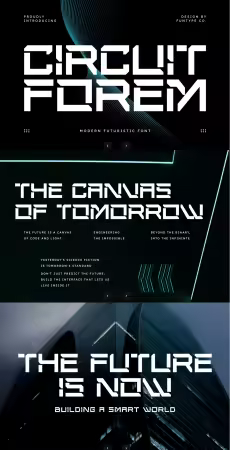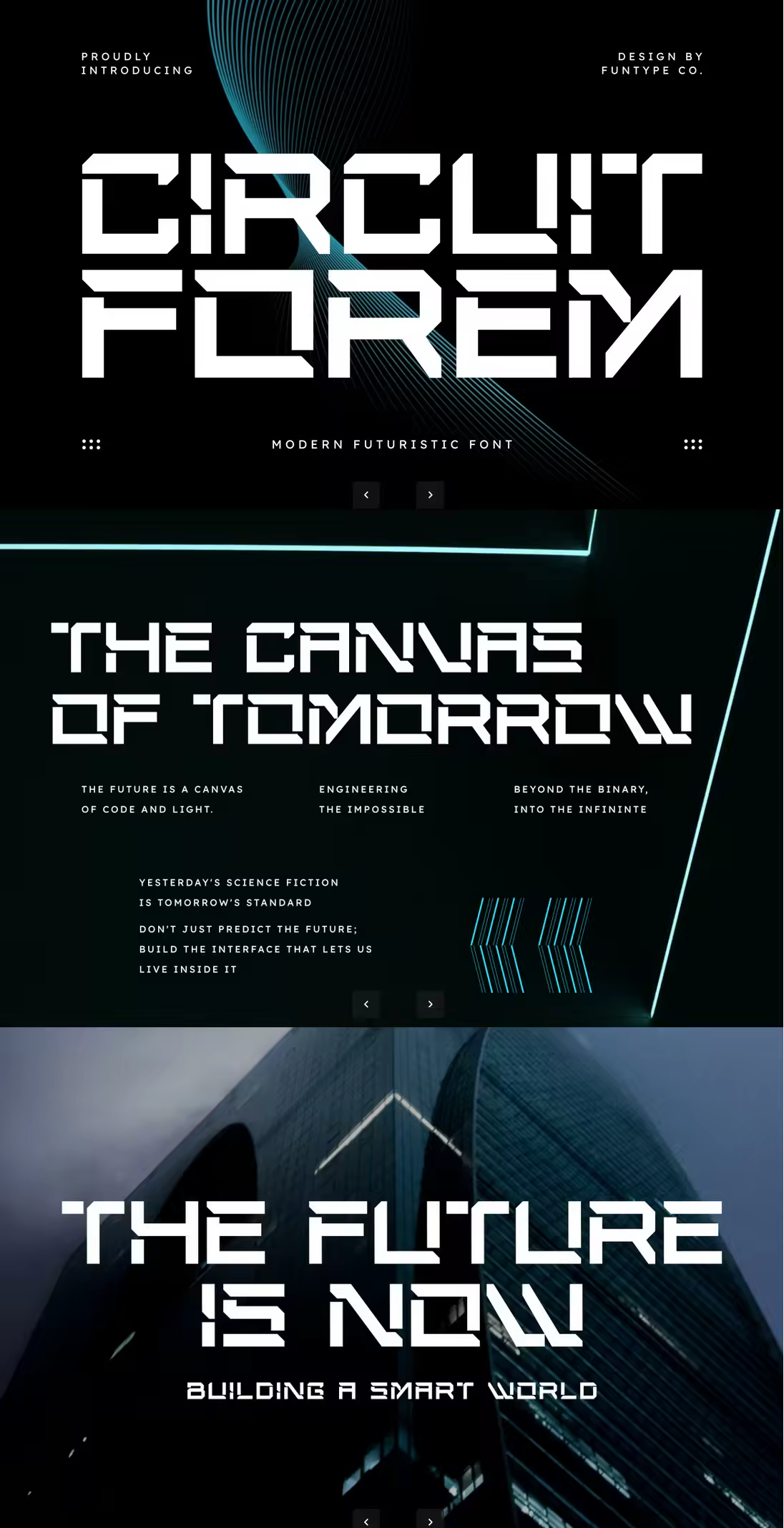
Circuit Forem - Modern Futuristic Techno Font
Circuit Forem is a cutting-edge futuristic font designed for the digital age. Inspired by circuit boards and high-tech architecture, this typeface features sharp, geometric lines that evoke a sense of speed, precision, and advanced technology.
It is the perfect choice for designers looking to create a powerful impact in the gaming industry, tech startups, sports branding, or any project that requires a bold, forward-thinking aesthetic. Whether for a logo, a sci-fi poster, or an app interface, Circuit Forem delivers a strong professional presence.
Main Features
Bold & Modern Futuristic Design.
Sharp geometric terminals for a techno feel.
Highly legible in display and headline sizes.
Perfect for sports, gaming, and technology sectors.